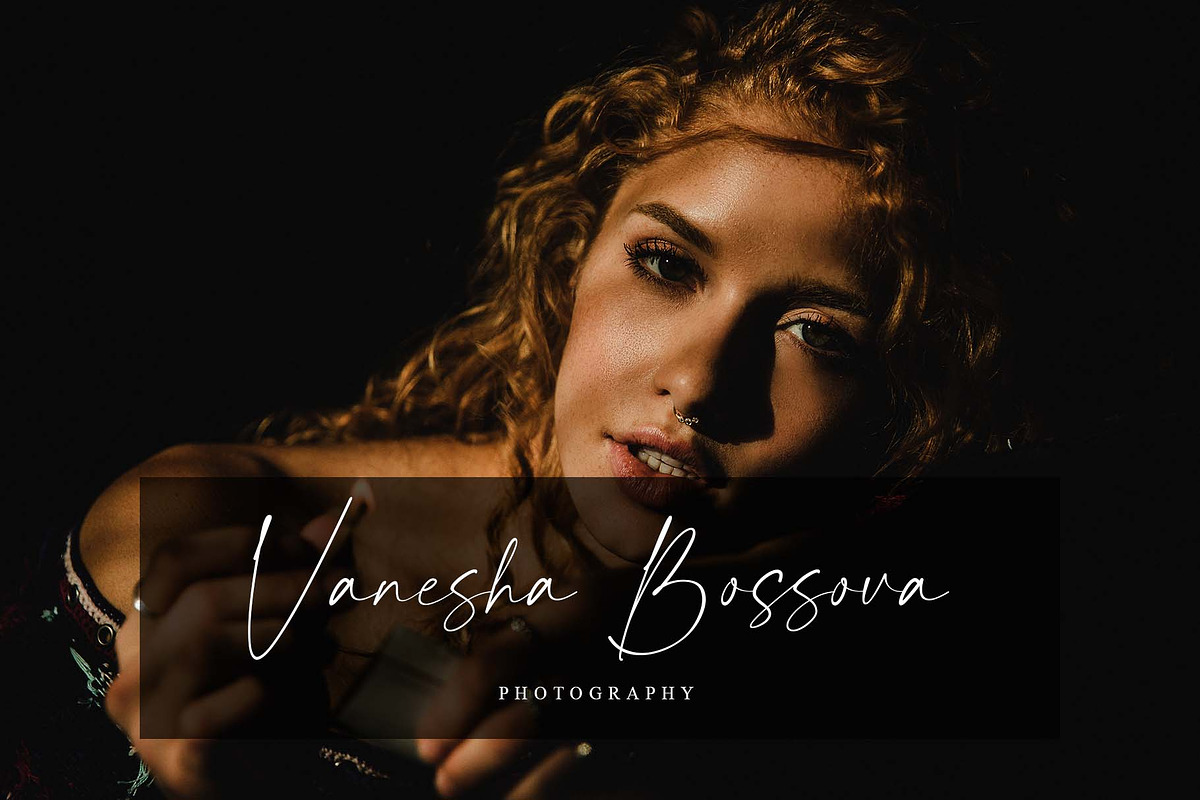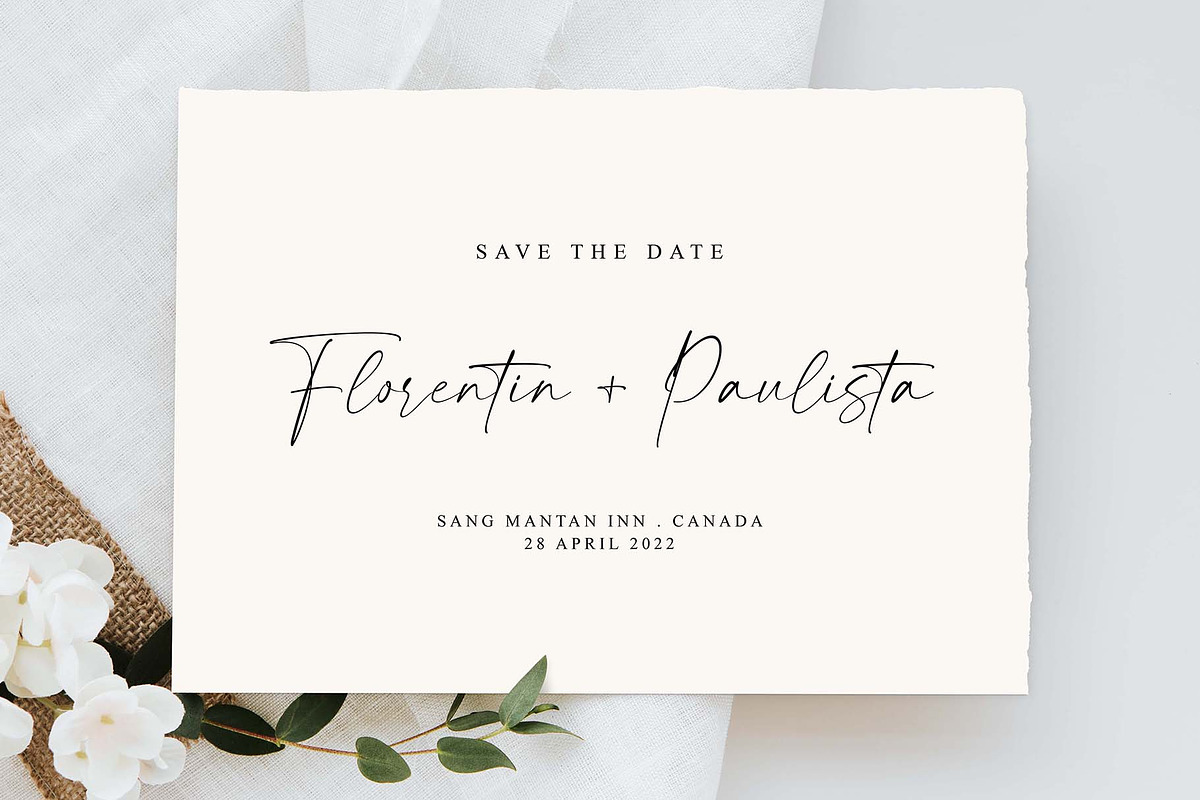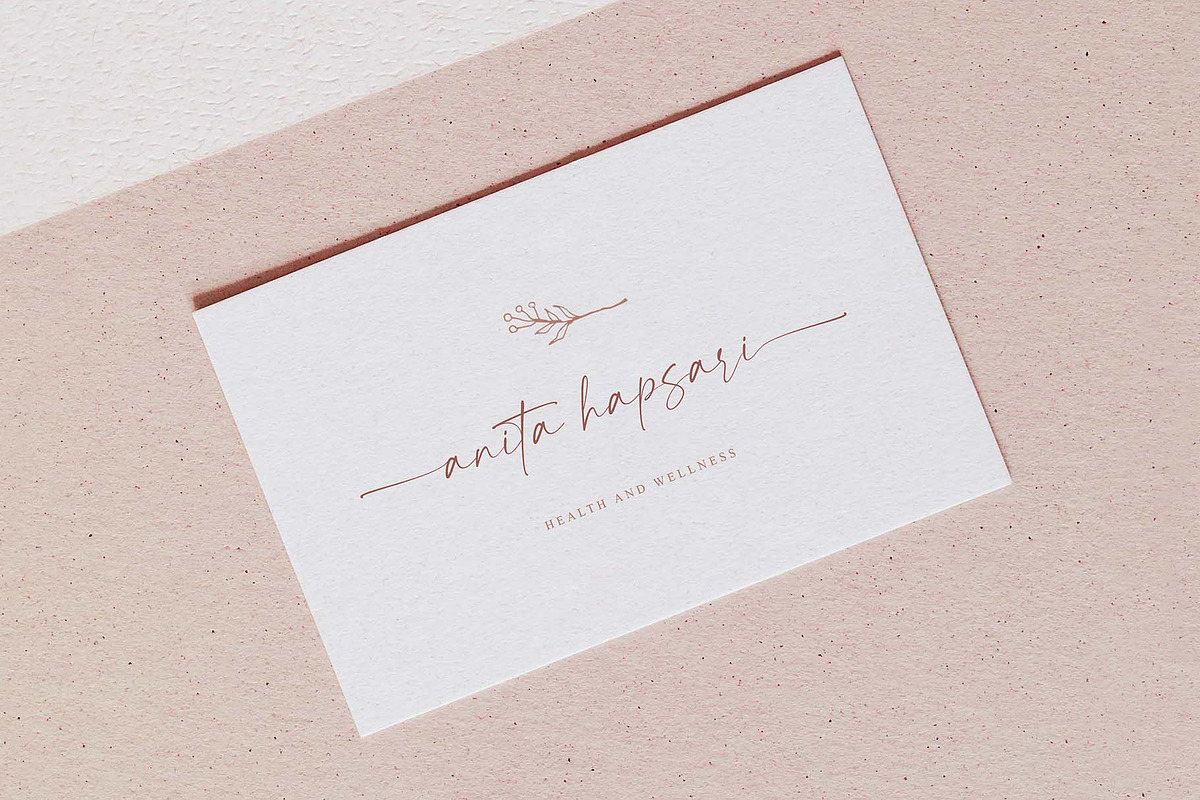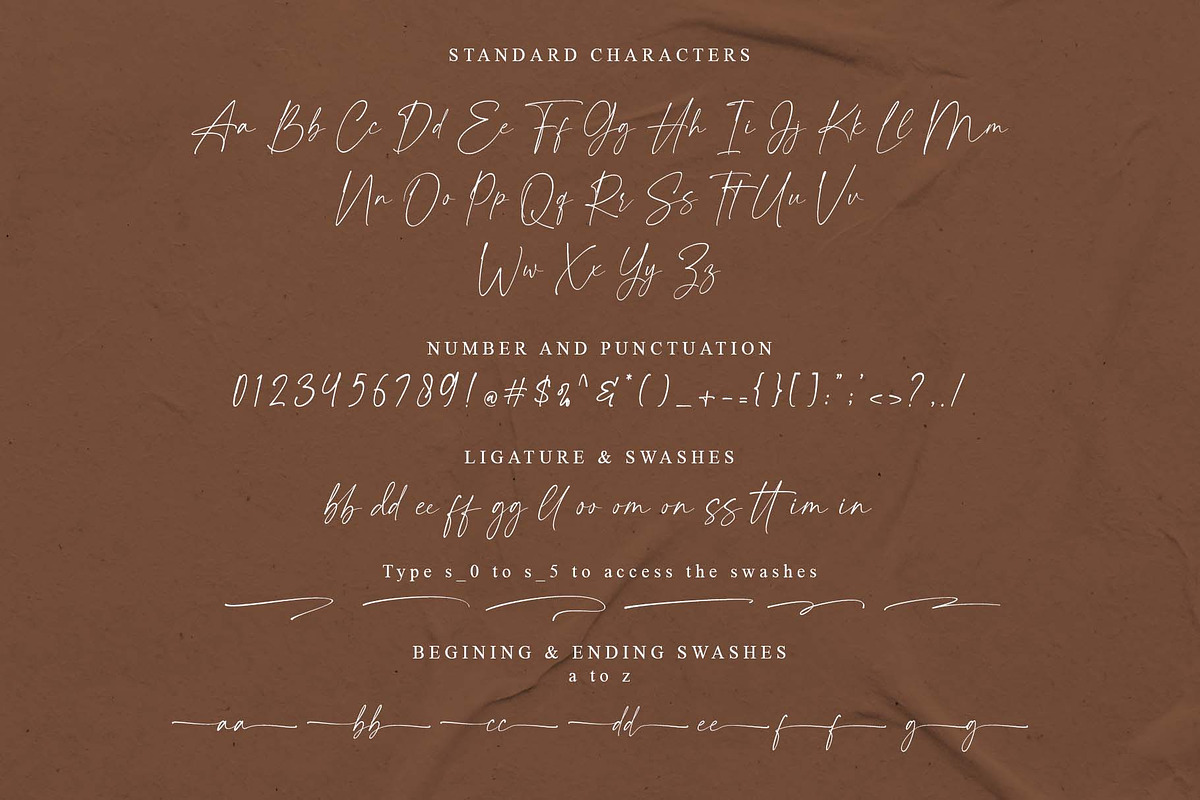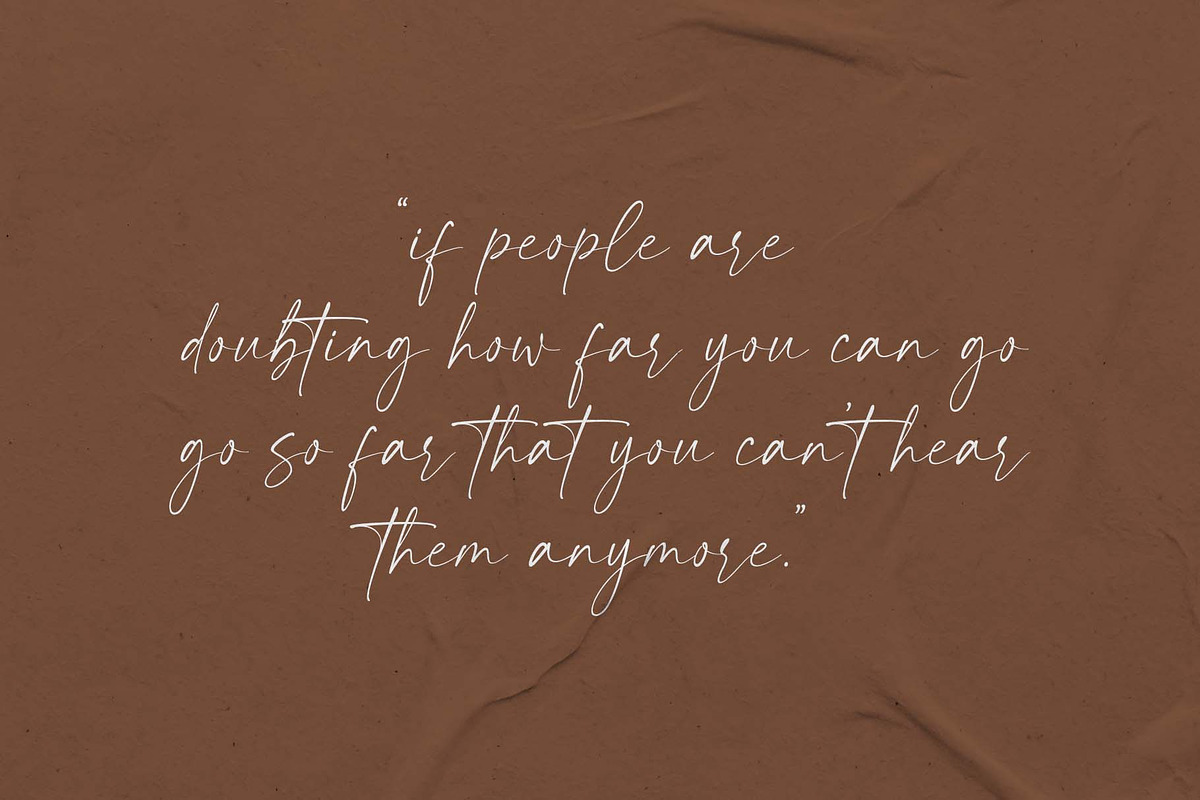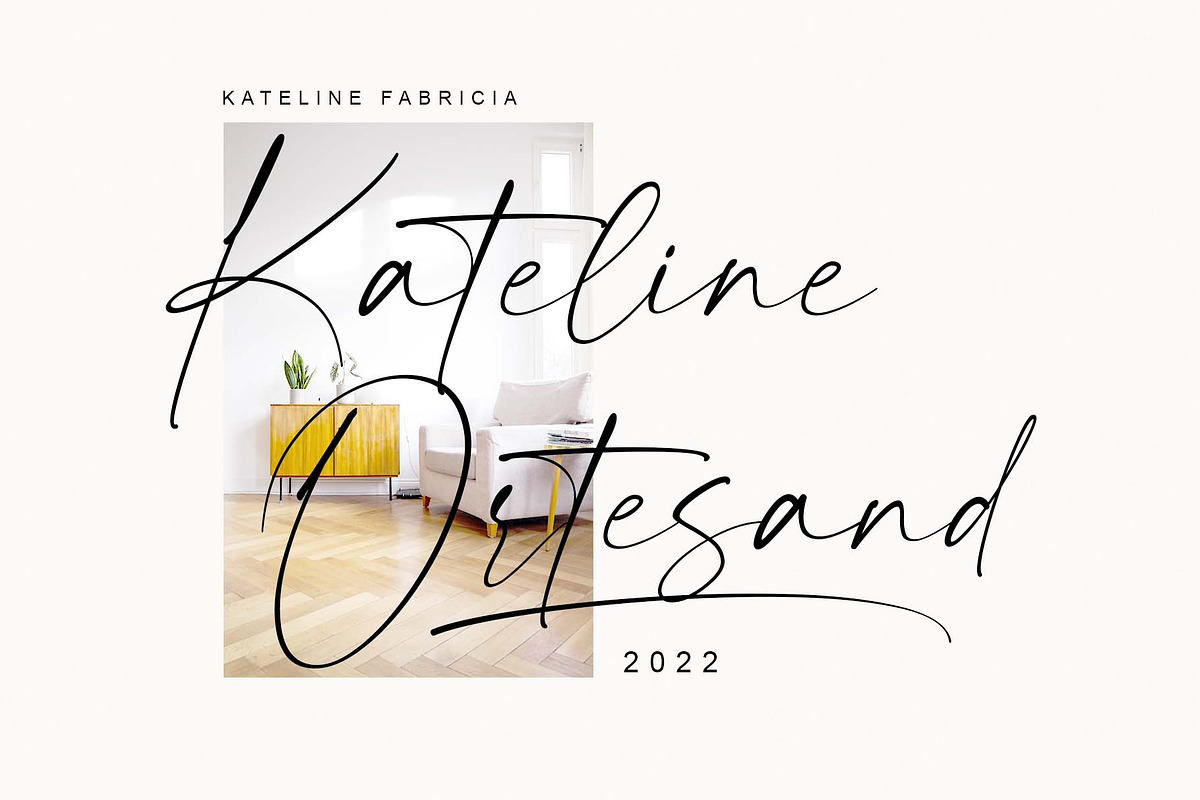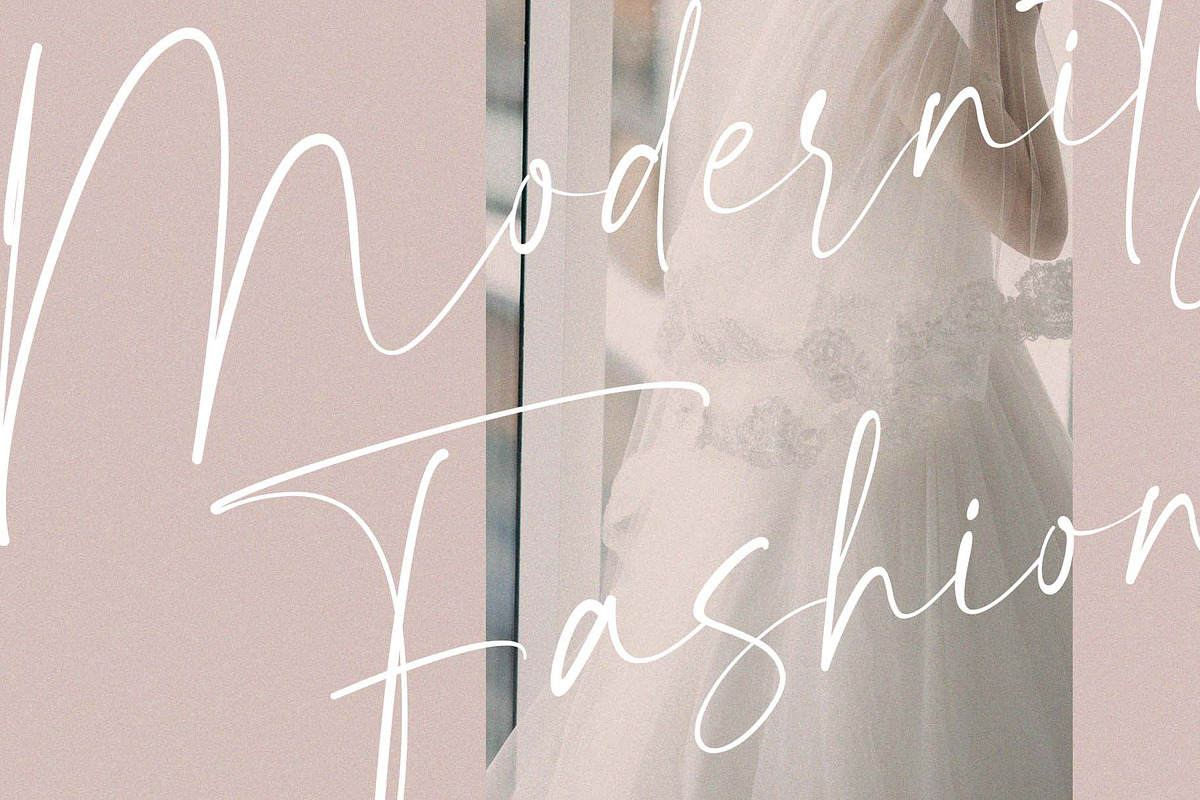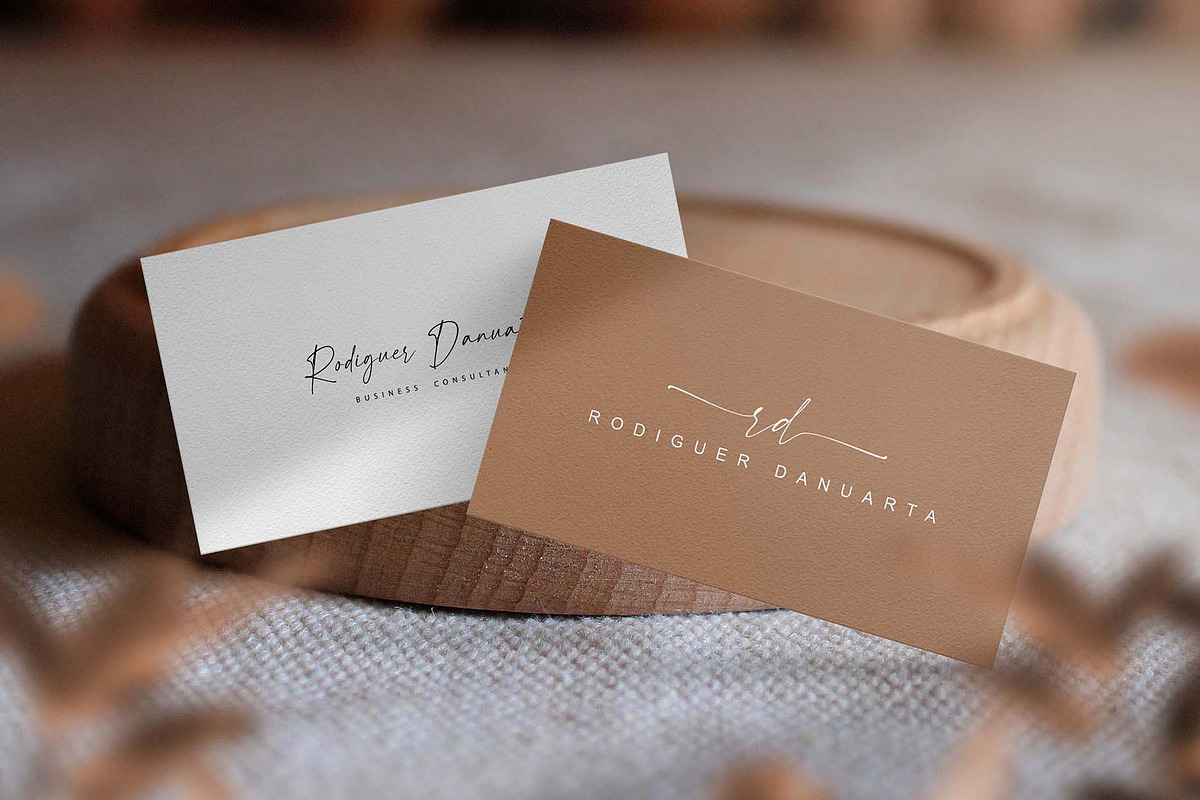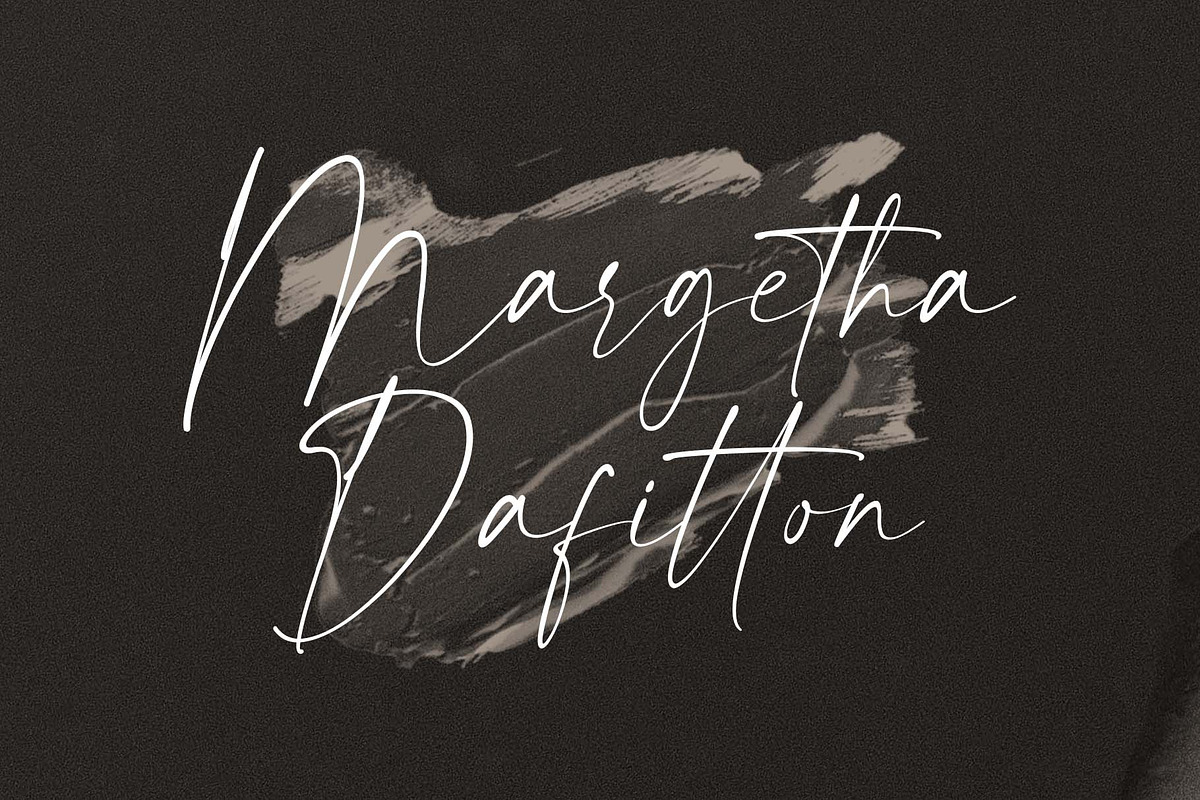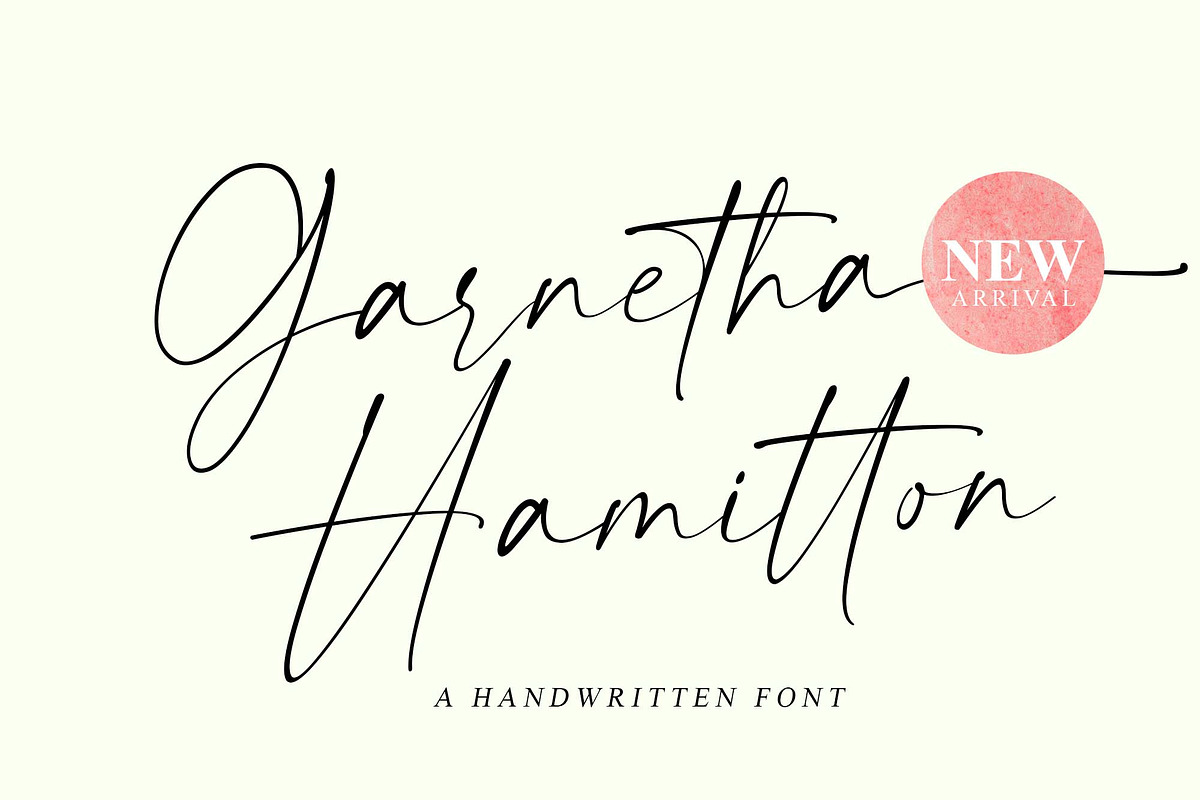
Garnetha Hamitton | Modern Script
Brand new has just arrived it's called "Garnetha Hamitton" is a modern script with an authentic and original handwriting touch to give the original impression to the design, this font is perfect for branding design, logo design, packaging design, stationery, poster, wedding design, wedding invitation, fashion design and more.
Garnetha Hamitton comes with a full set of Uppercase, Lowercase numeral and punctuation, and multilingual support.